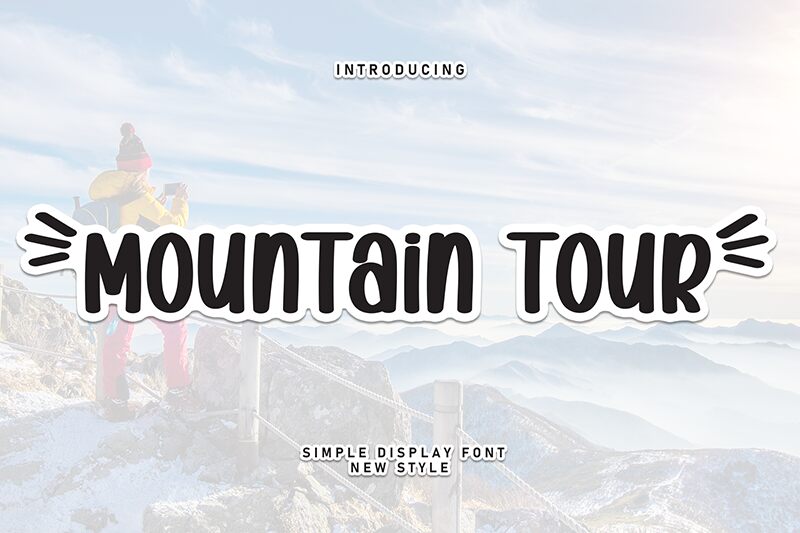
Mountain Tour
Mountain Tour font by Scratchones is a free handwritten font that exudes a whimsical and approachable vibe. Its casual style is enhanced with a modern touch, while rounded shapes make the condensed font size appear natural. Even without letter connections, Mountain Tour has an incredibly easy-going flowing appearance.
Use Mountain Tour in travel-themed magazines, journals, adventure blogs, posters about the great outdoors or camping pamphlets. Utilize it for playful packaging or branding projects related to food packaging such as candies and coffee or bakery-related items such as bread; tea can packages also allow leveraging its storytelling style effectively!